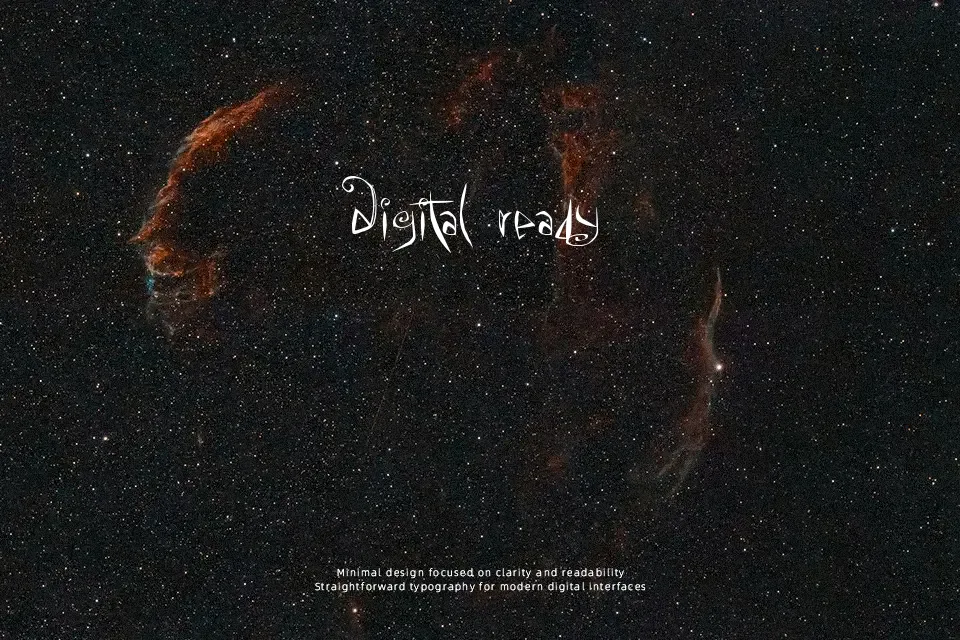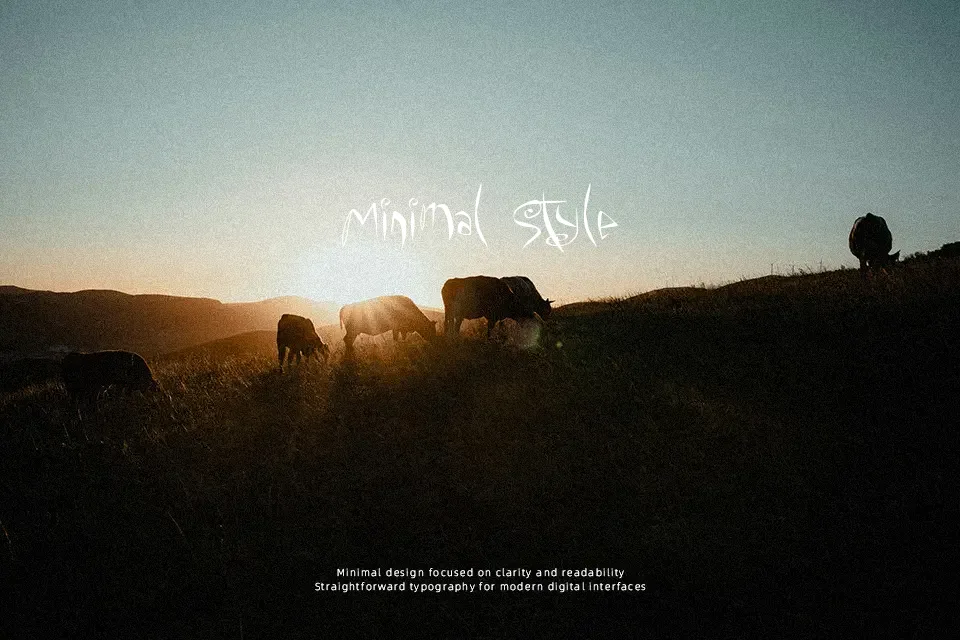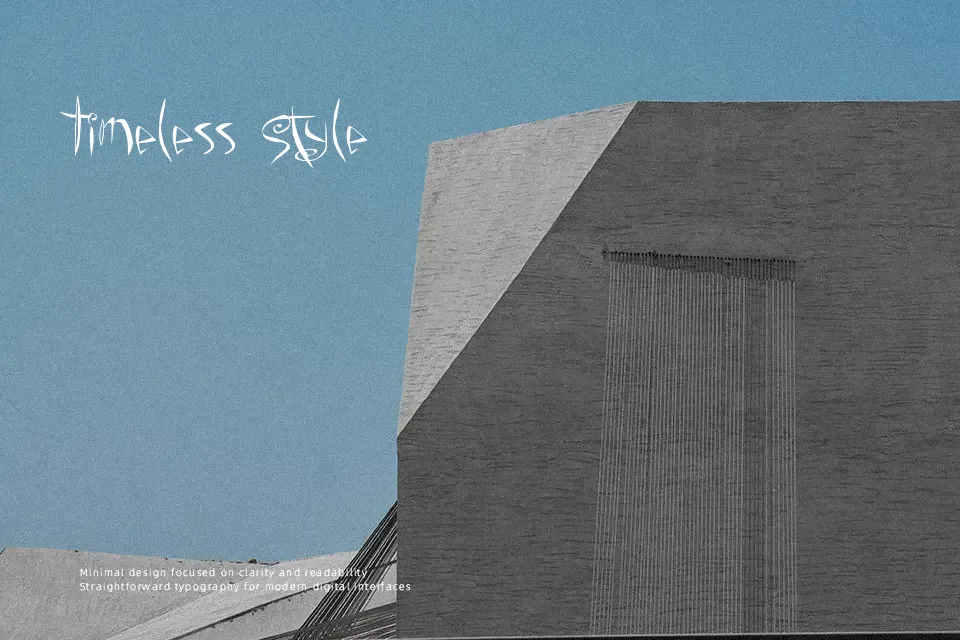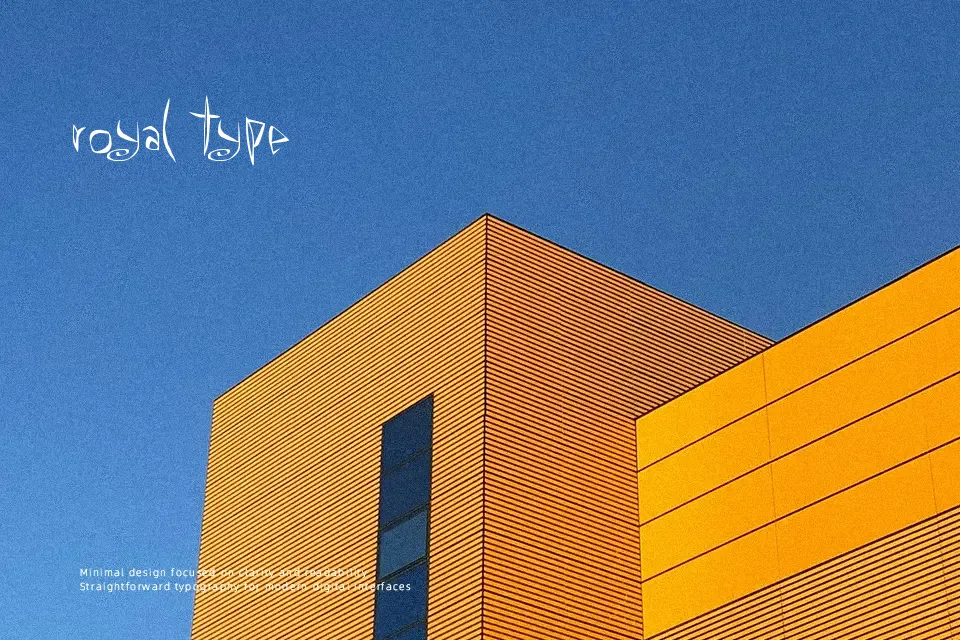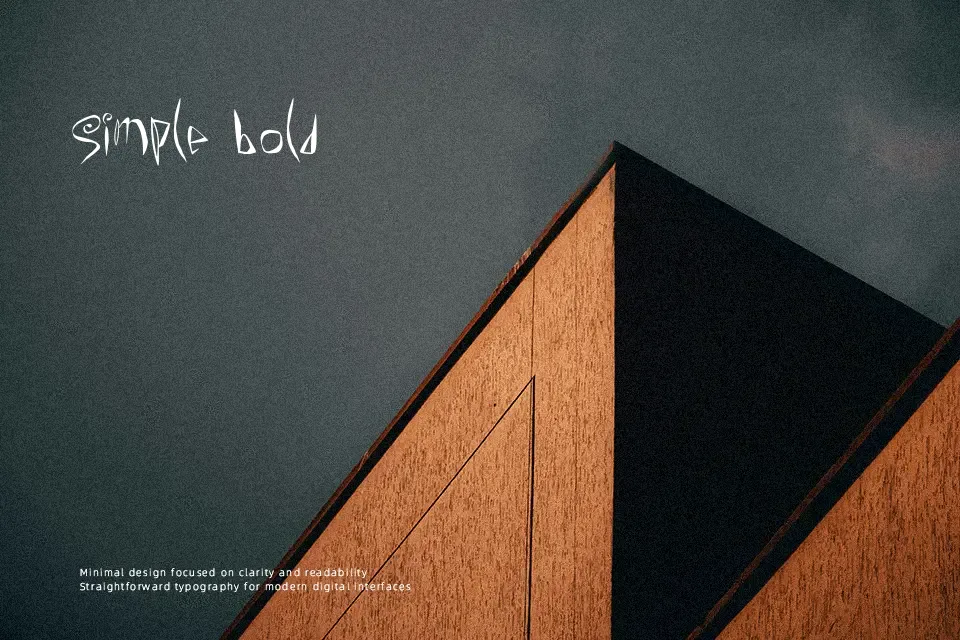
ChaMeLEon DrEamS Font
ChaMeLEon DrEamS Font delivers a lively, decorative presentation through fluid curves, eccentric swashes, and spirited character forms. The typeface features inconsistent stroke widths and asymmetrical loops that create an energetic, handcrafted aesthetic across uppercase and lowercase sets. Spacing remains relatively compact to preserve visual momentum, though individual glyph widths vary significantly across the alphabet. While these eccentric proportions provide distinct charm in large poster headlines and novelty packaging, the intricate details become less effective at smaller sizes. The dense curls also impair continuous reading comfort in standard editorial paragraphs. For festive branding and party materials, however, the letterforms offer an unmistakable sense of whimsical motion.
children book covers,birthday party invitations,novelty product packaging,festive event posters
continuous body text,corporate annual reports,technical user manuals,small mobile interface labels
Perfect for headline, invitation, and kids, with a artistic and cartoon style.